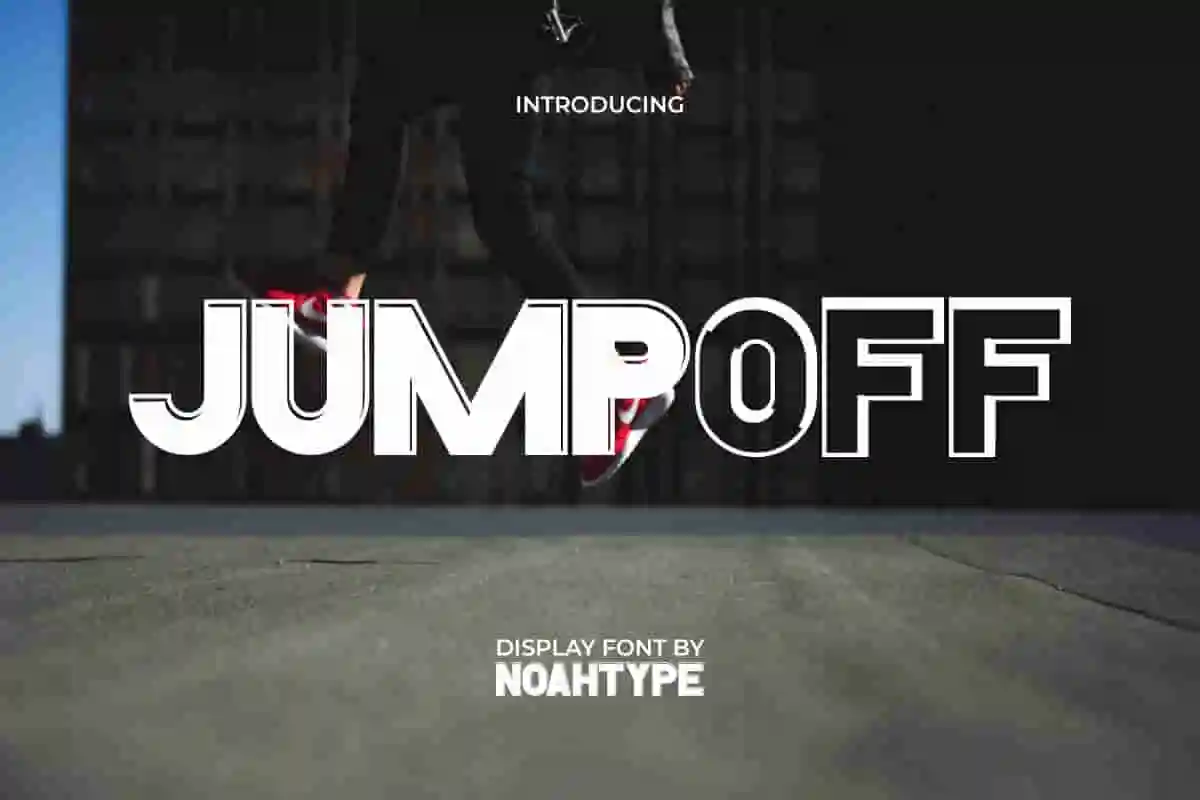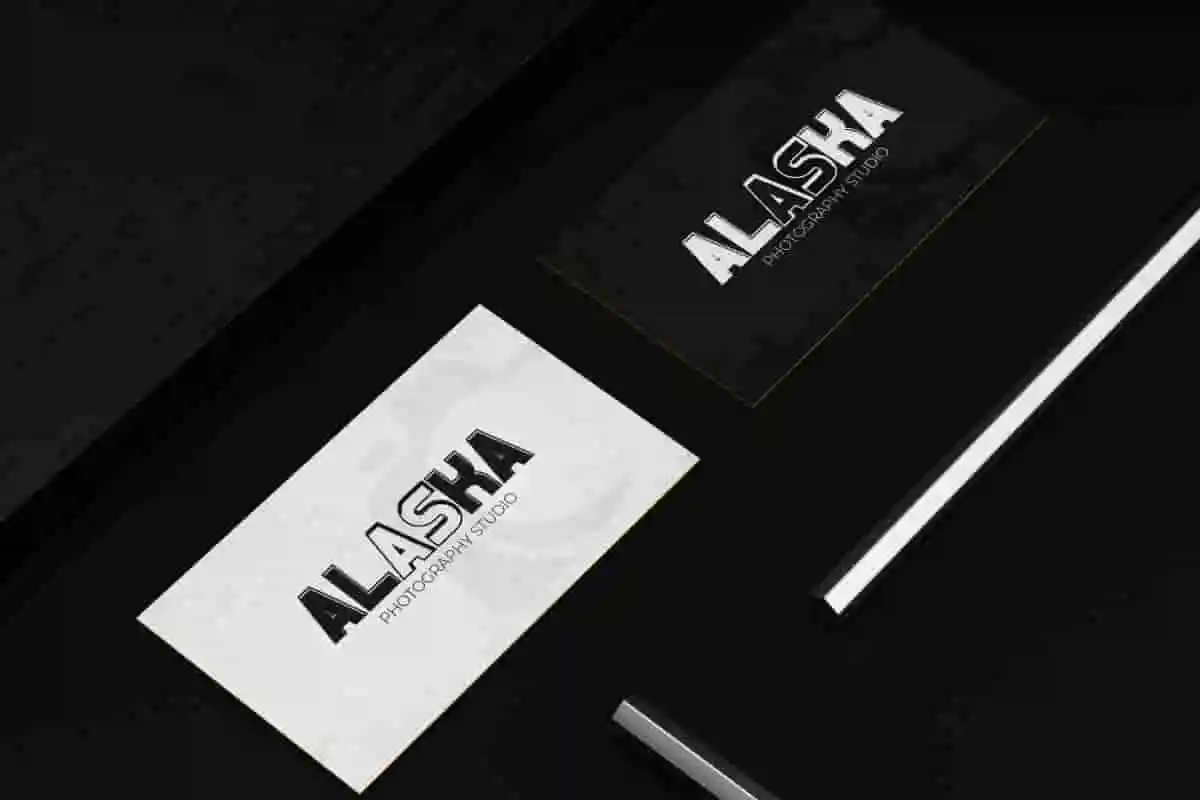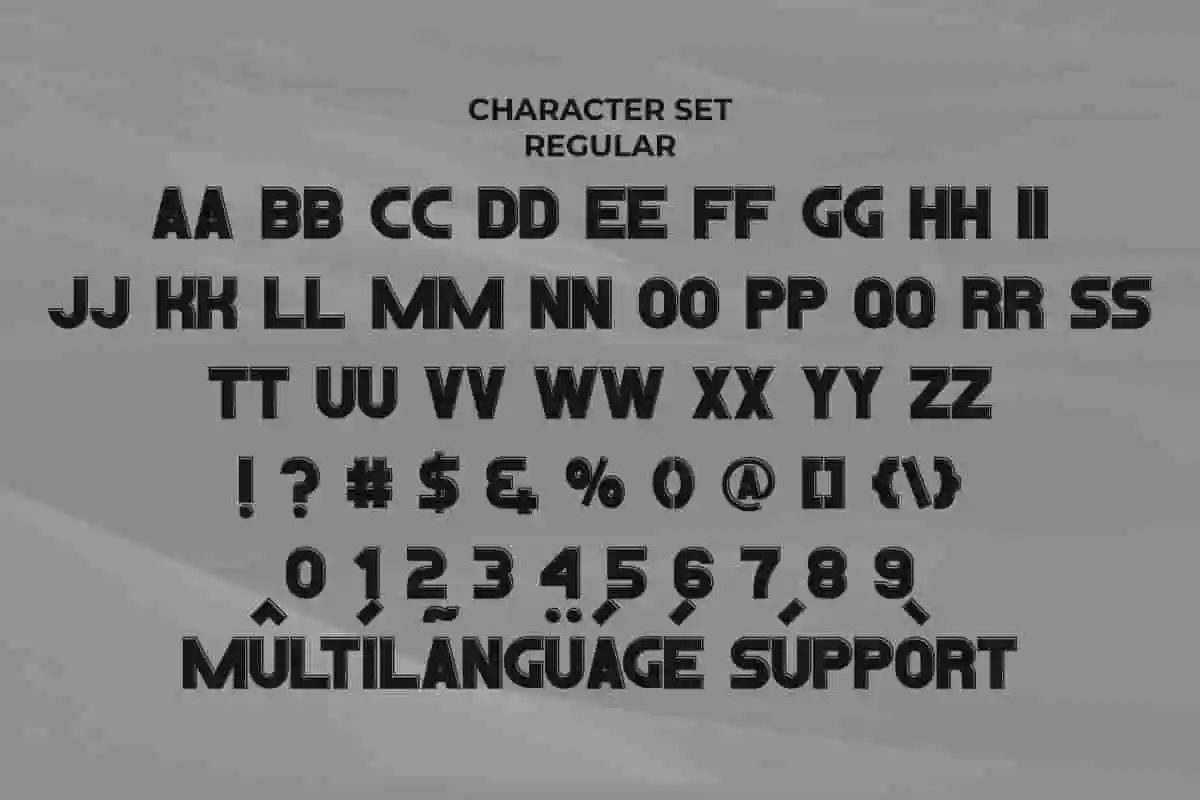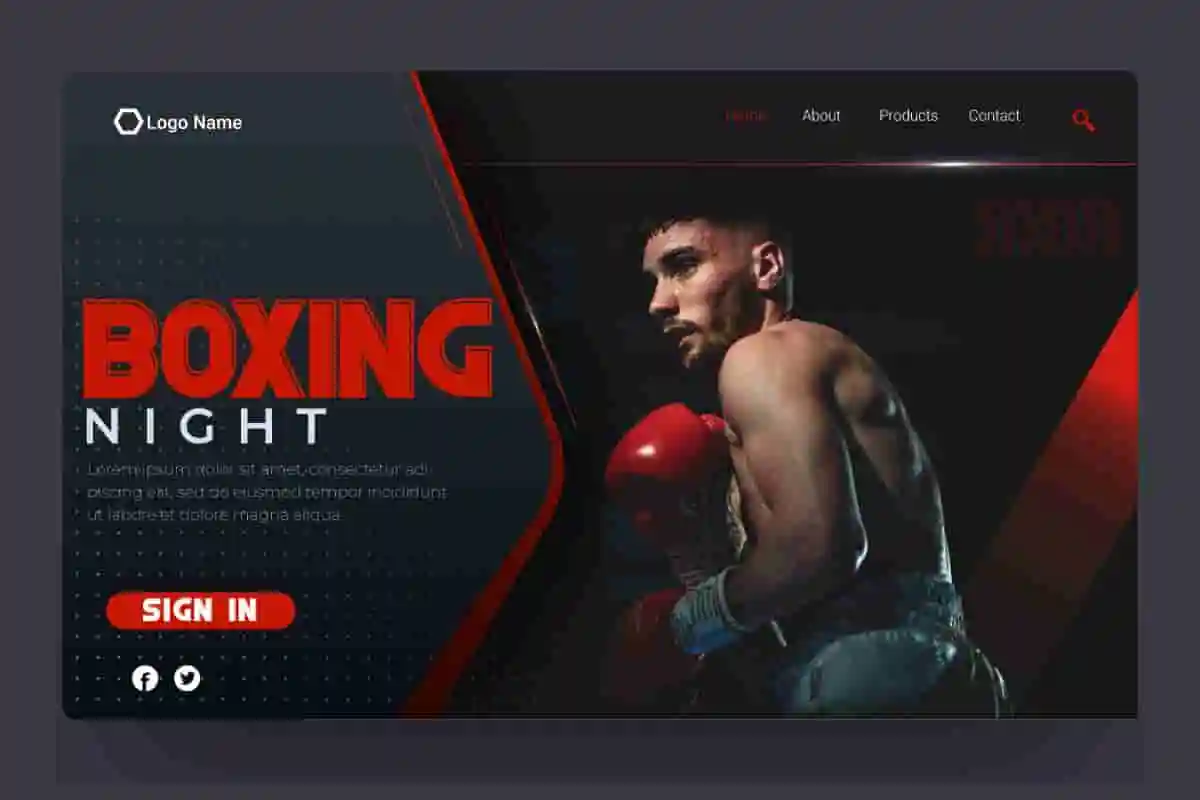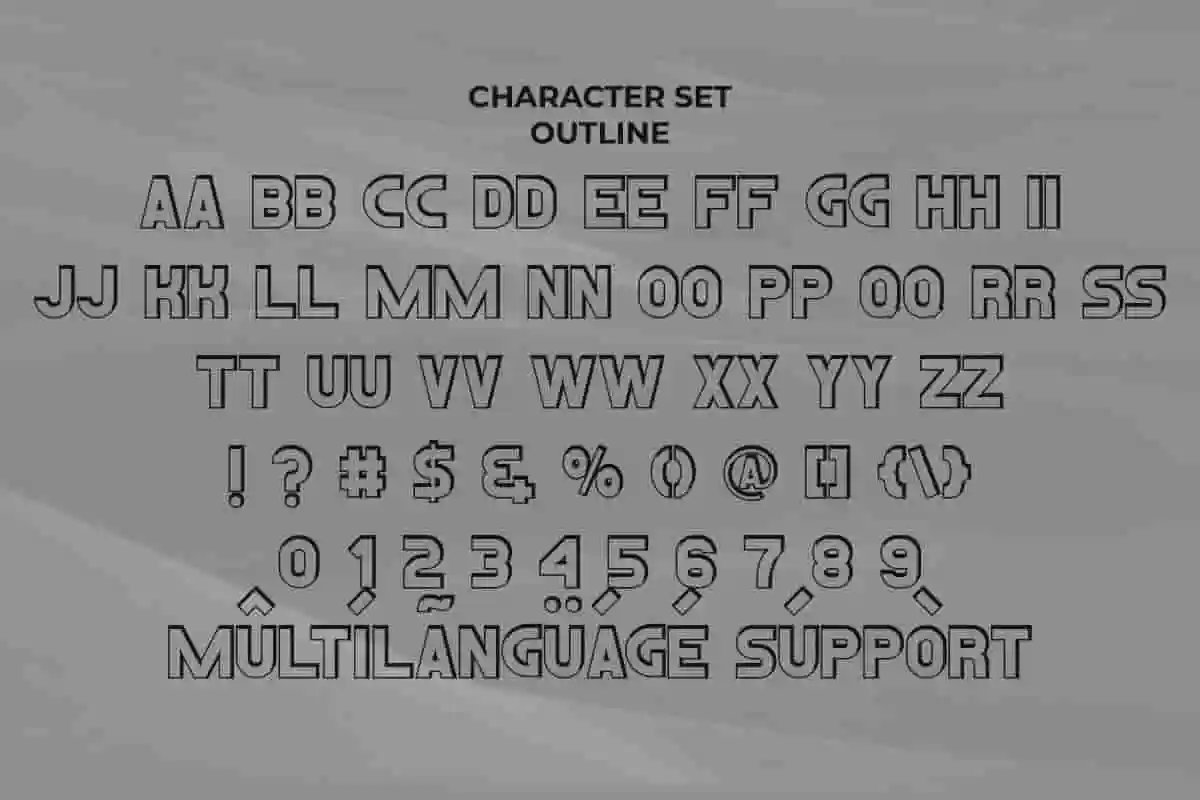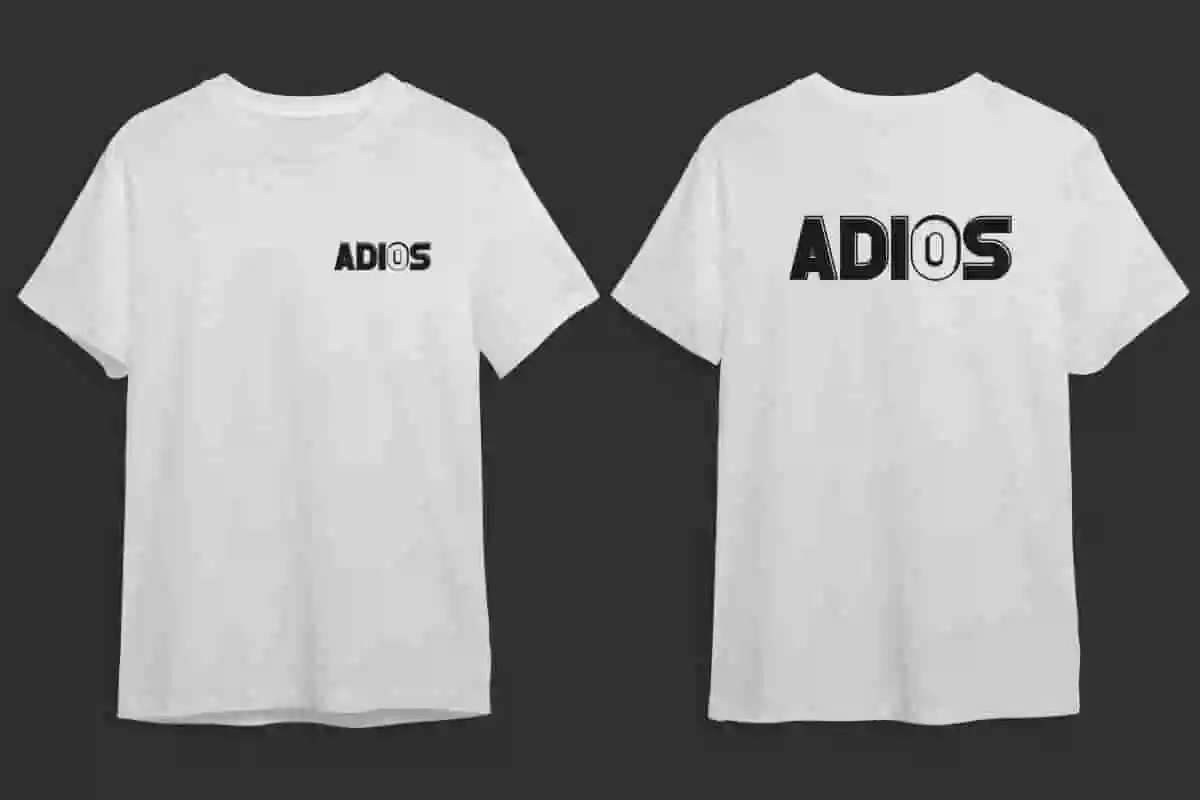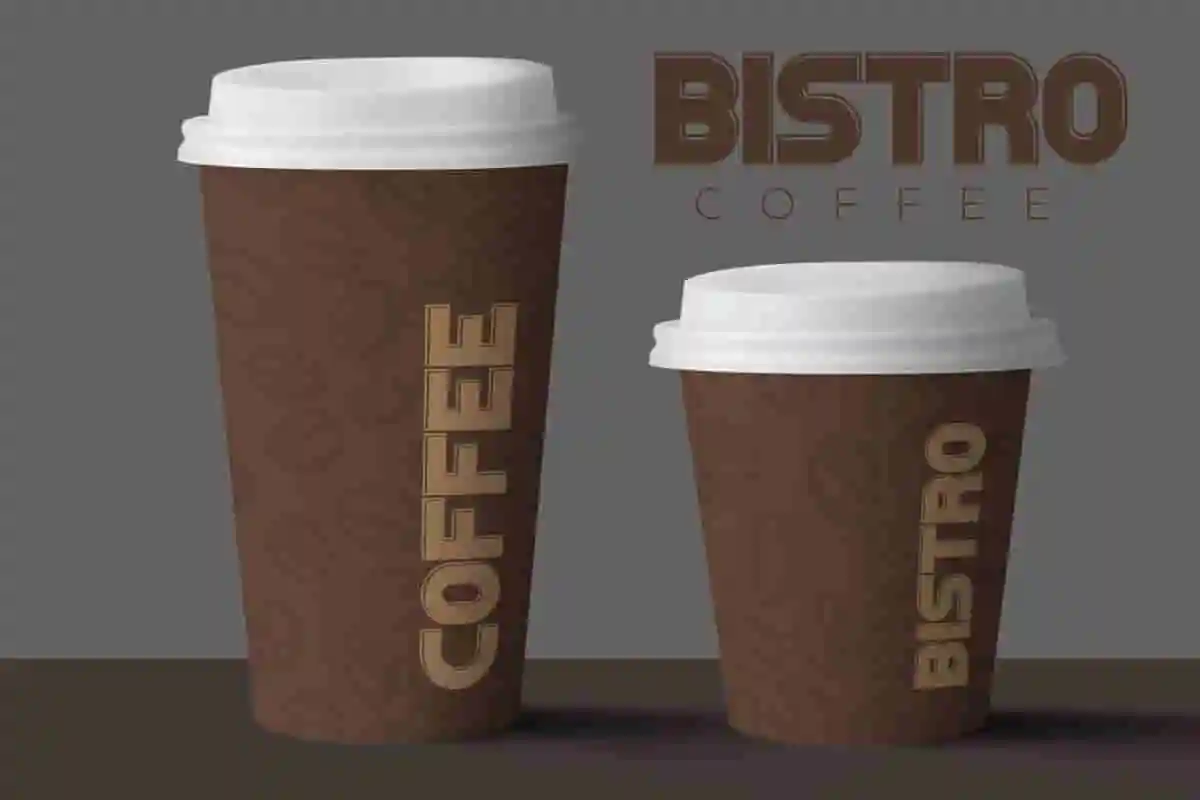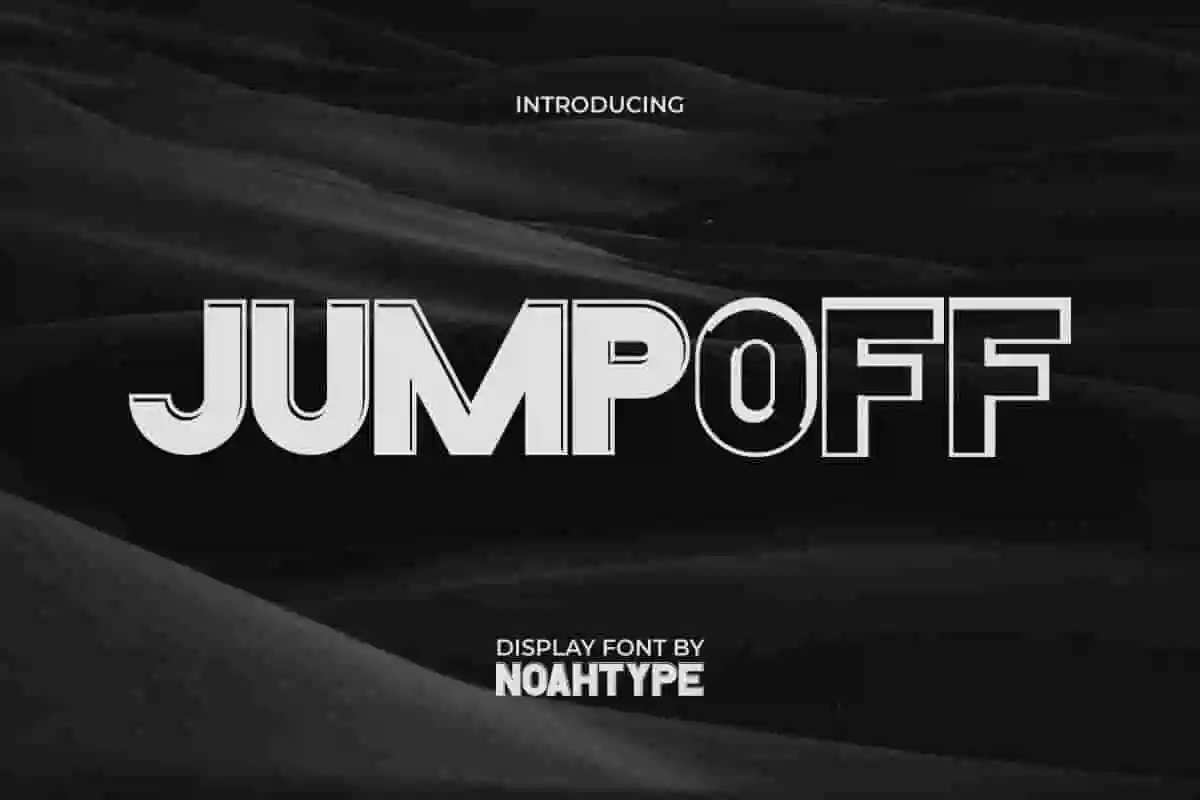
Jumpoff Font is a modern and sporty sans serif display font with all caps (uppercases) letters. The font was designed inspired from modern sporty clubs but it will also works amazing for any other projects or industries : events, corporate company, trucking, consumers and goods company, and many more. Jumpoff Font includes full set of Uppercase Basic Characters, Numerals and Punctuation. This font will be great to use any project that requires an elegant and sporty look!
Jumpoff Font have two styles options to choose from, but you can surely combine the two of them. The styles are : Regular and Outline.. It will be ready to use both on Windows machine or Mac. It work well on Adobe software such as Illustrator, Photoshop and several other software.